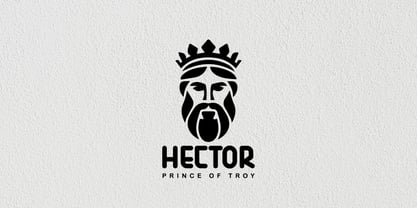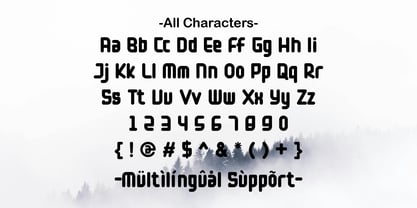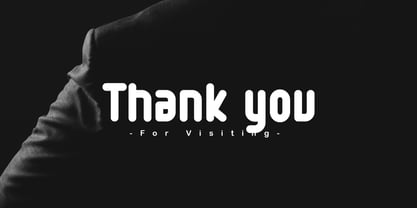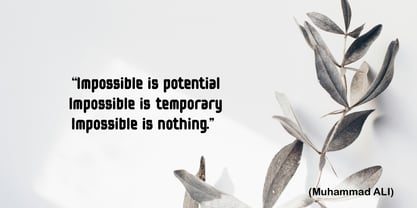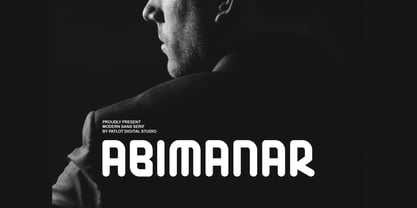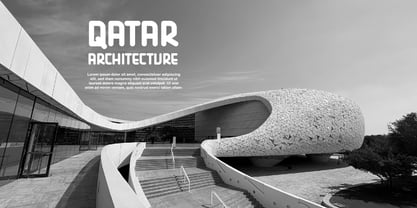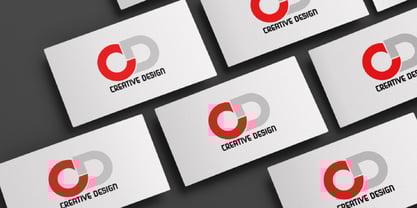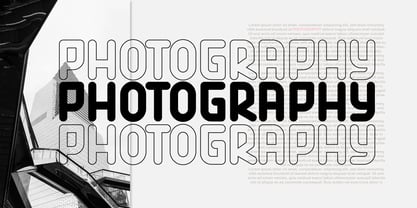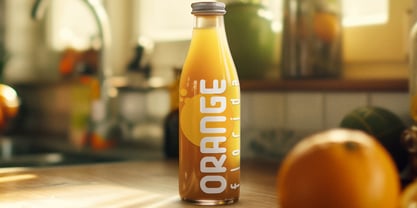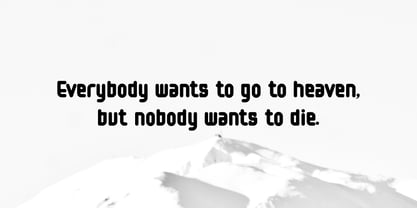
Abimanar
by Patlot Digital Studio
The Abimanar Font Family was designed by Gugun Gunawan and published by Patlot Digital Studio. Abimanar contains 1 styles. More about this family
Abimanar is a modern logo font designed to add a simple yet professional touch to branding and identity projects. With its crisp lines and modern style, this font is perfect for logos, business branding, packaging, website headers, and marketing materials.
Abimanar offers a futuristic yet minimalist look, making it ideal for businesses and creators seeking a bold and memorable visual identity.
Designers: Gugun Gunawan
Foundry: Patlot Digital Studio